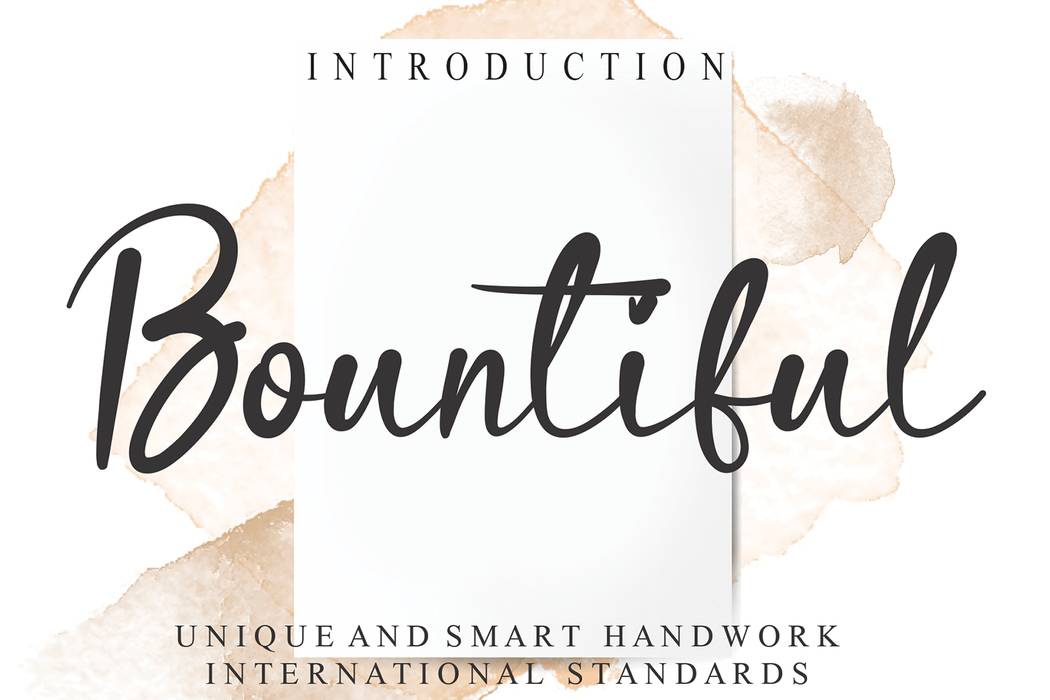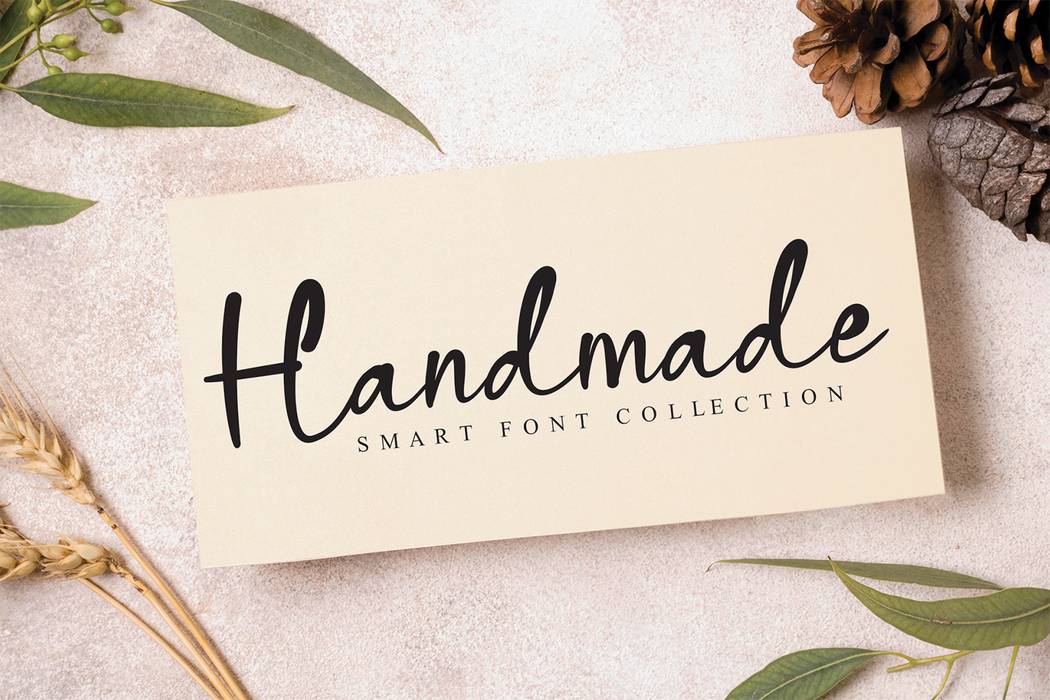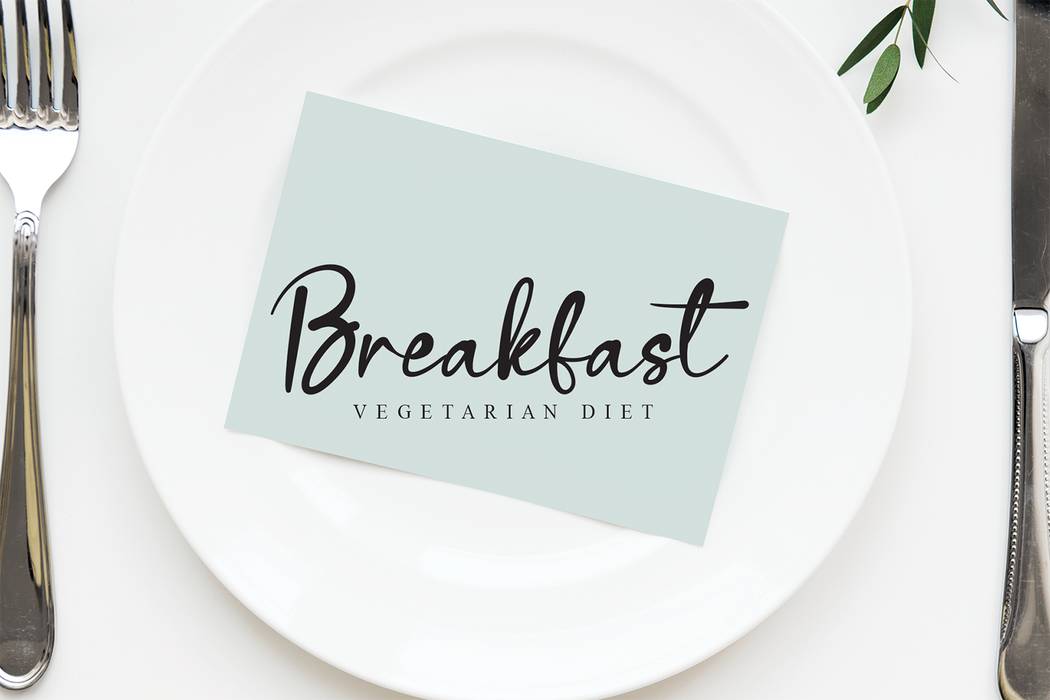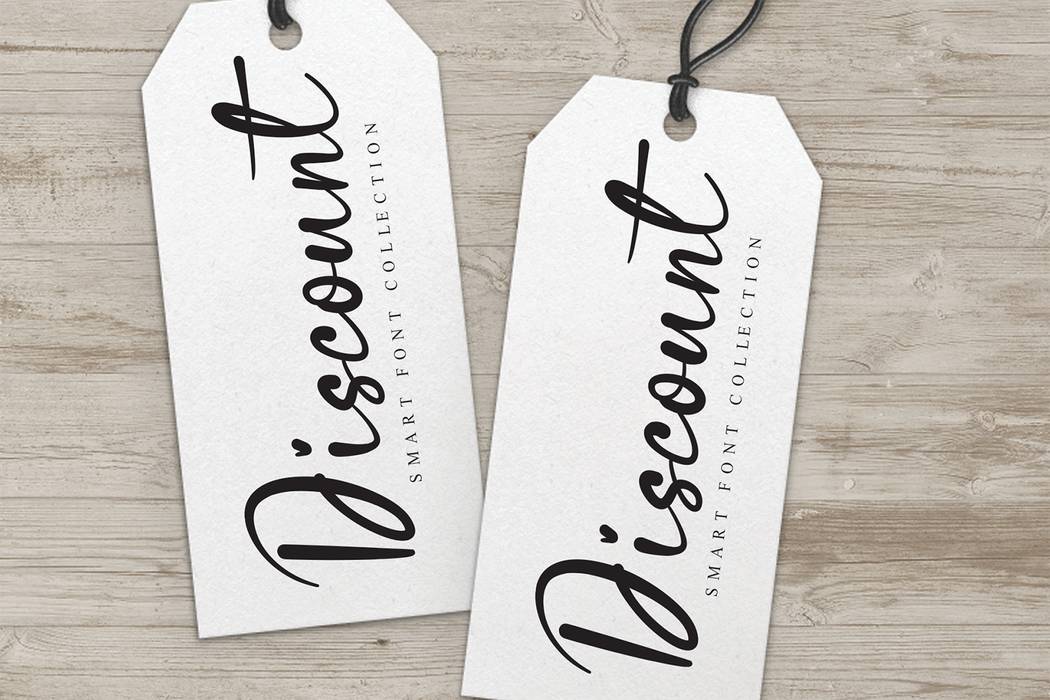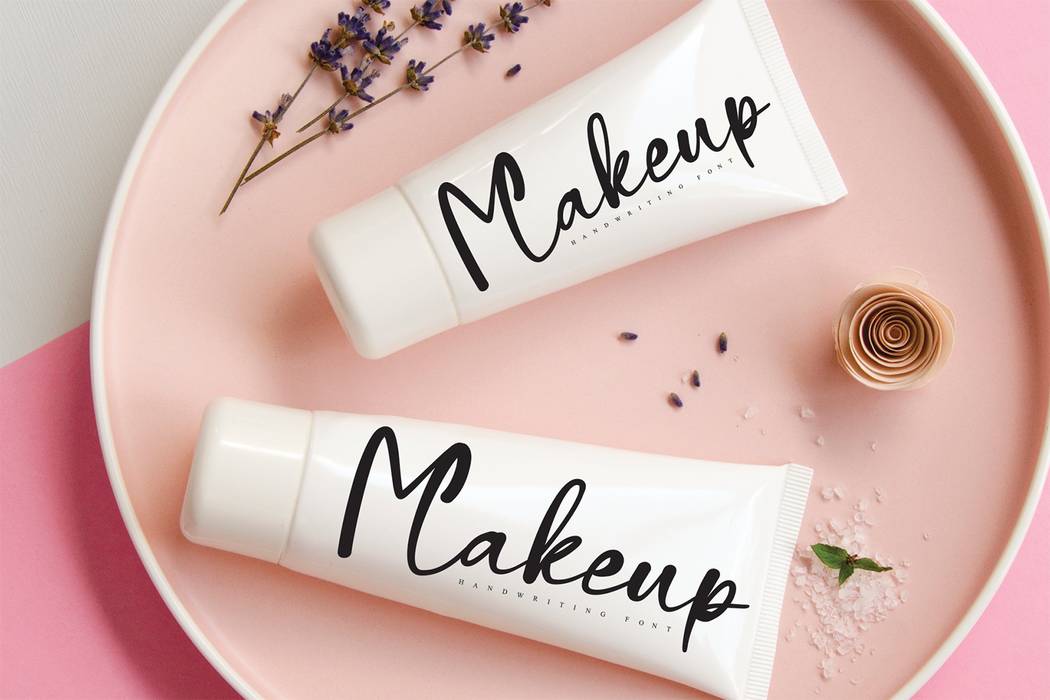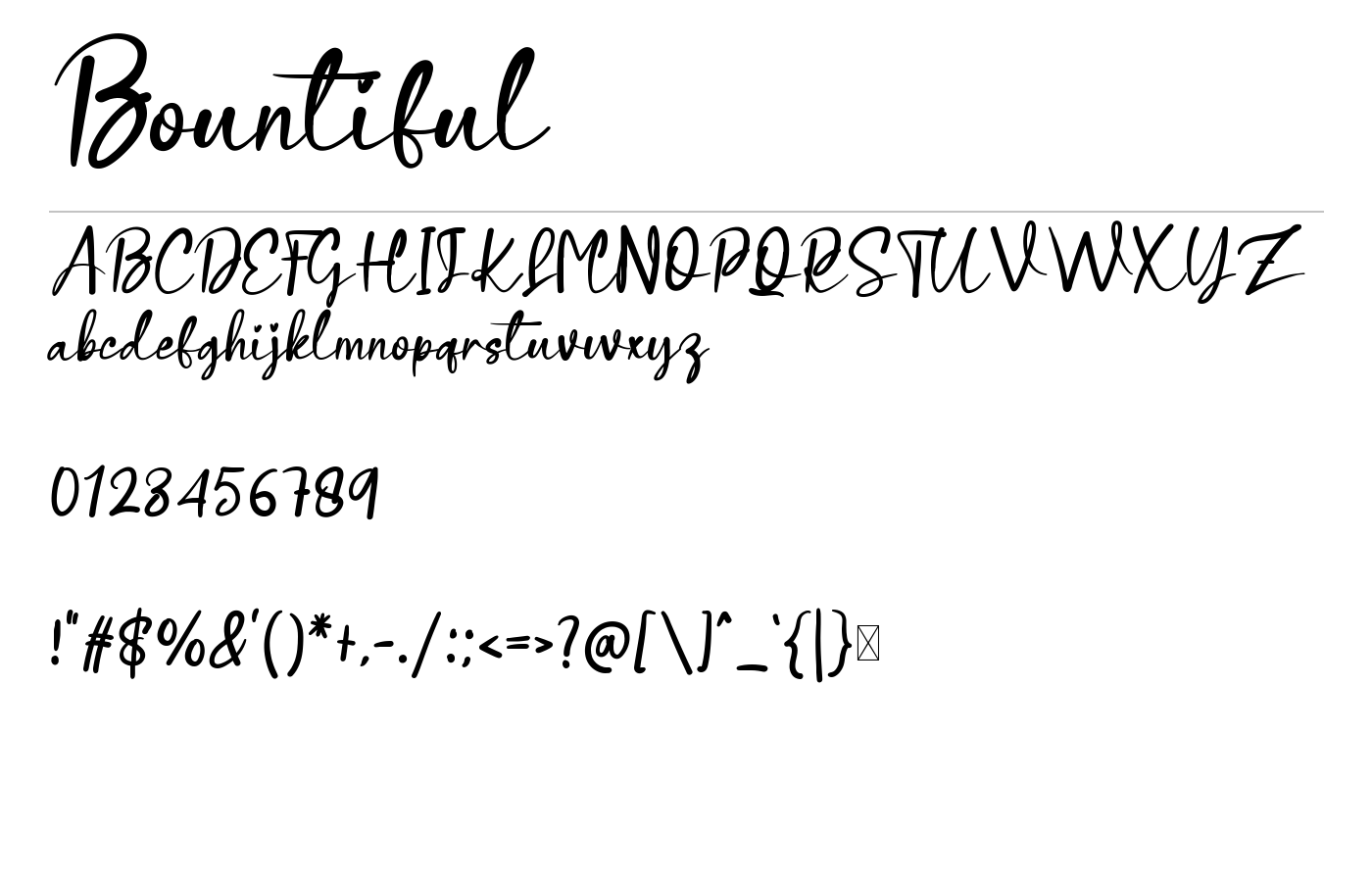
Bountiful Font is a lively and elegant script typeface with a modern handwritten feel, featuring smooth, flowing strokes and moderate contrast that lends it a natural yet stylish appearance. Its tall, slightly condensed letterforms and casual curves make it perfect for branding, invitations, and creative projects where a personal, friendly touch is desired. This font works especially well in designs that aim to be both approachable and sophisticated, combining beauty with readability.
Bountiful Font
About Bountiful Font